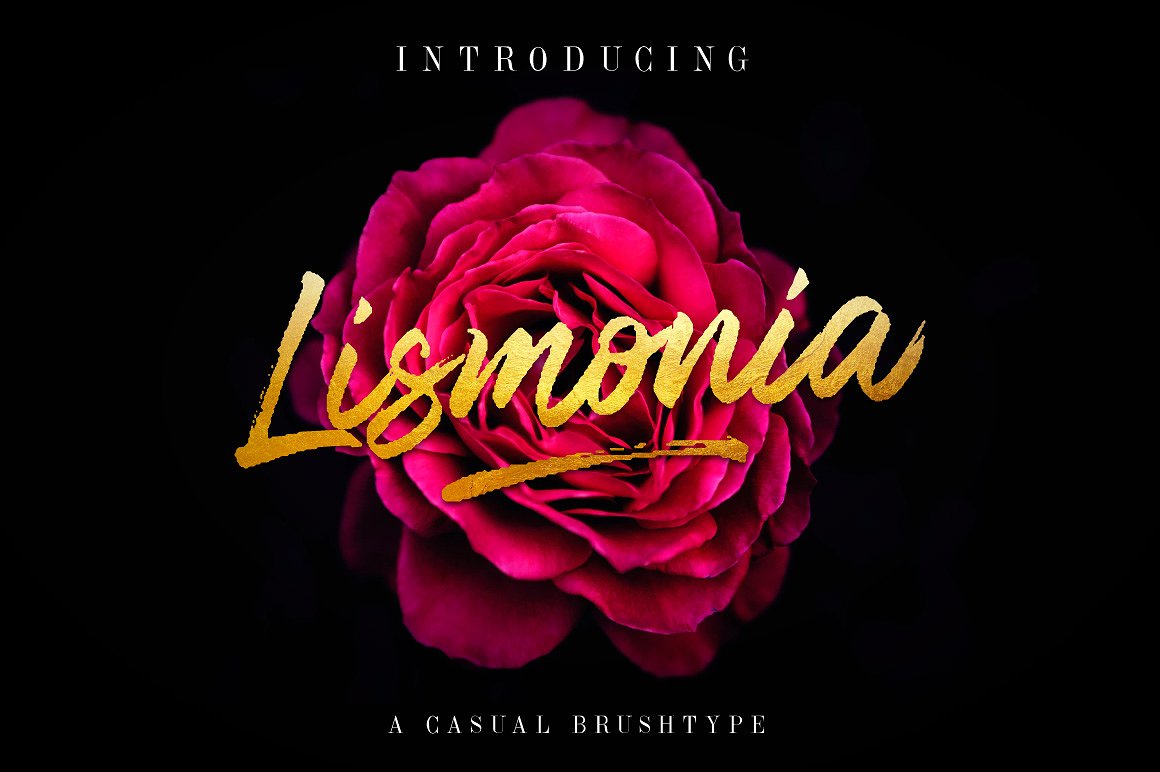
Lismonia Script
Introducing Lismonia, a casual handwritten brush font with quick dry strokes and a signature style. Lismonia great to use for logos, inspirational quotes, t-shirt graphics, typography art, apparel, labels, posters, business cards, stylized wedding invitations, prints, signs, book cover designs headlines, titles, etc.